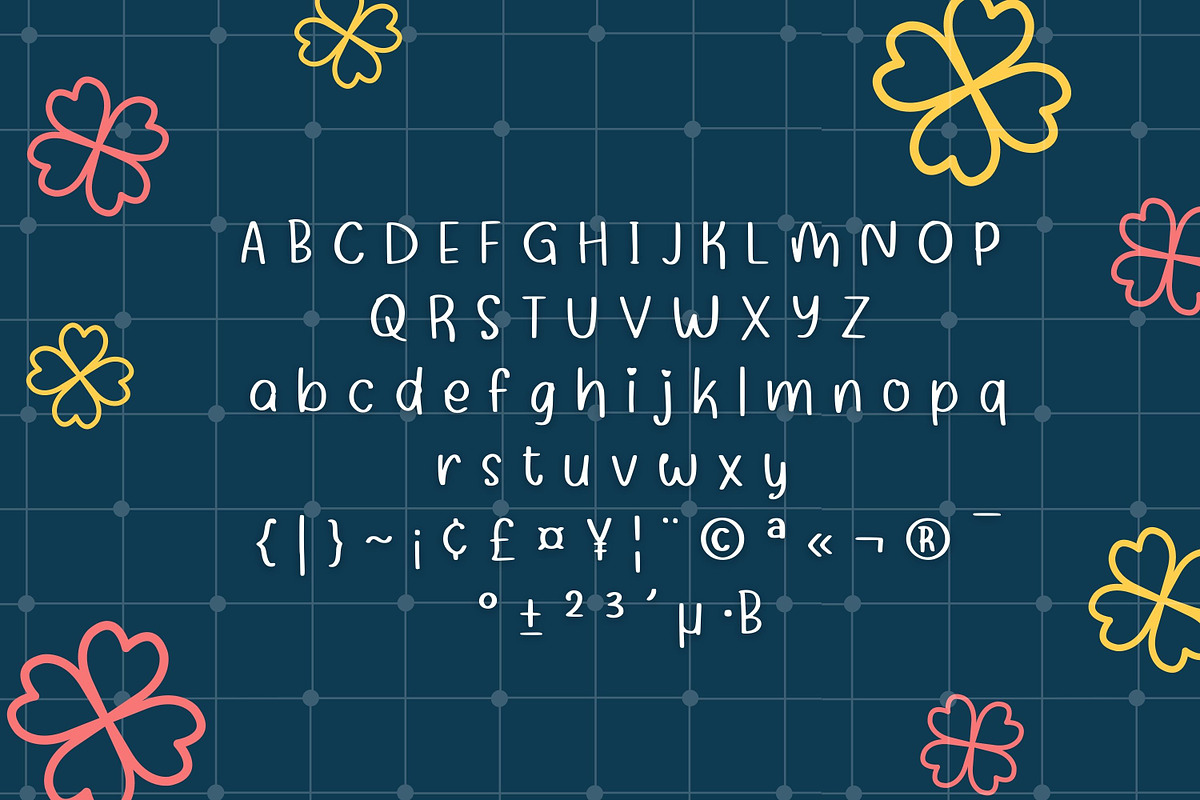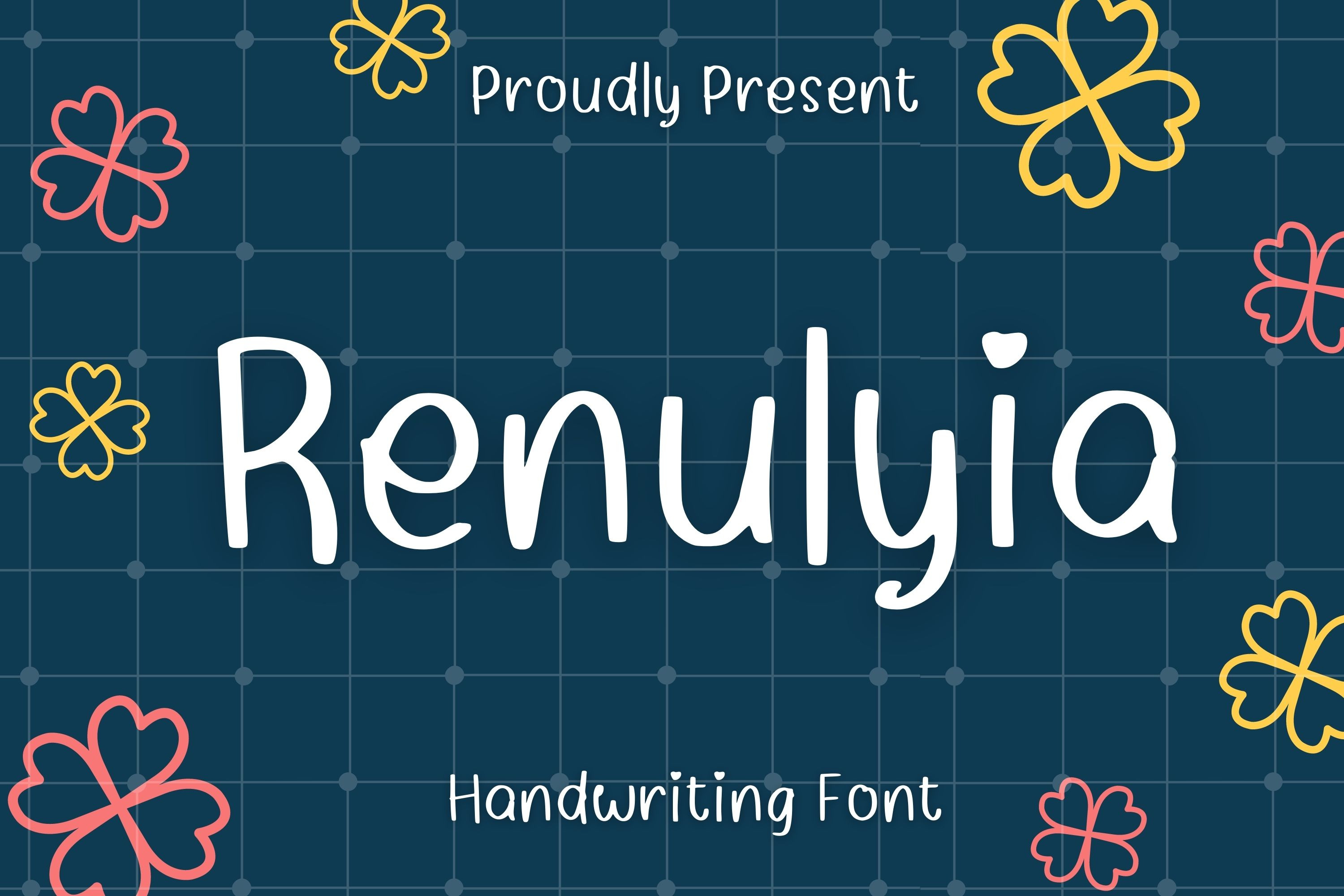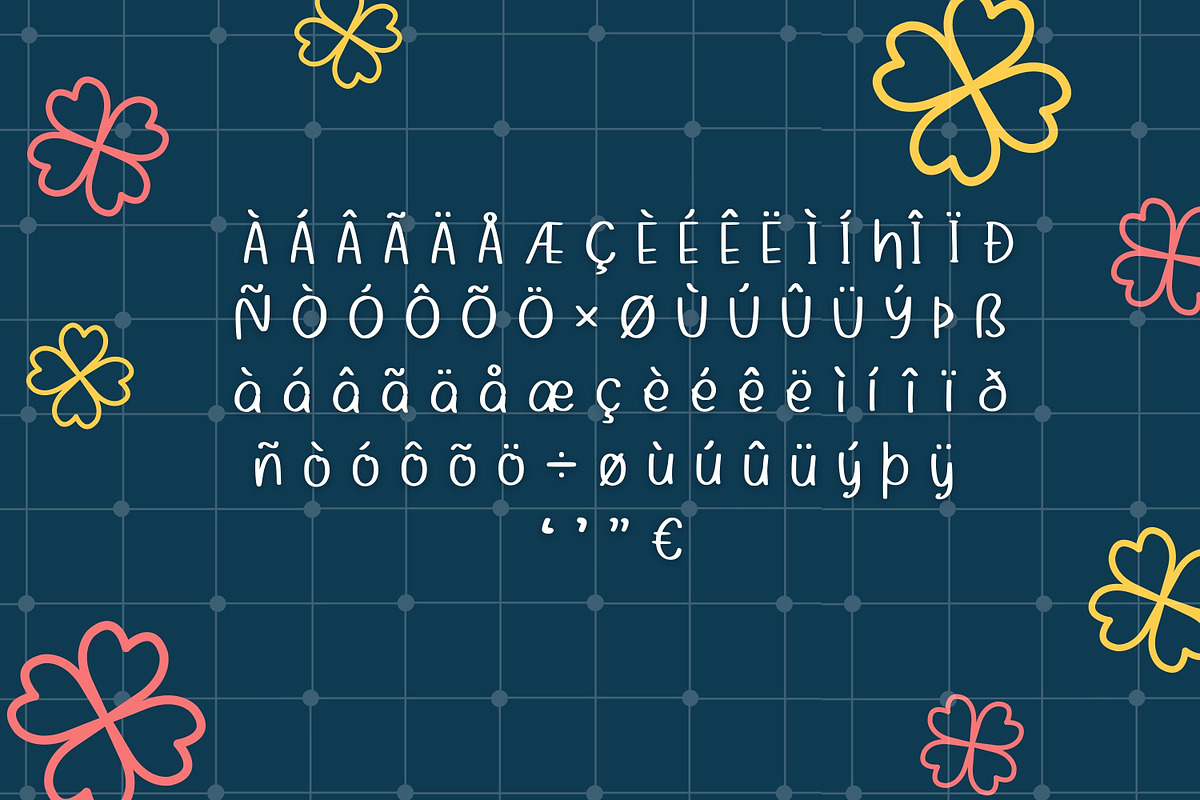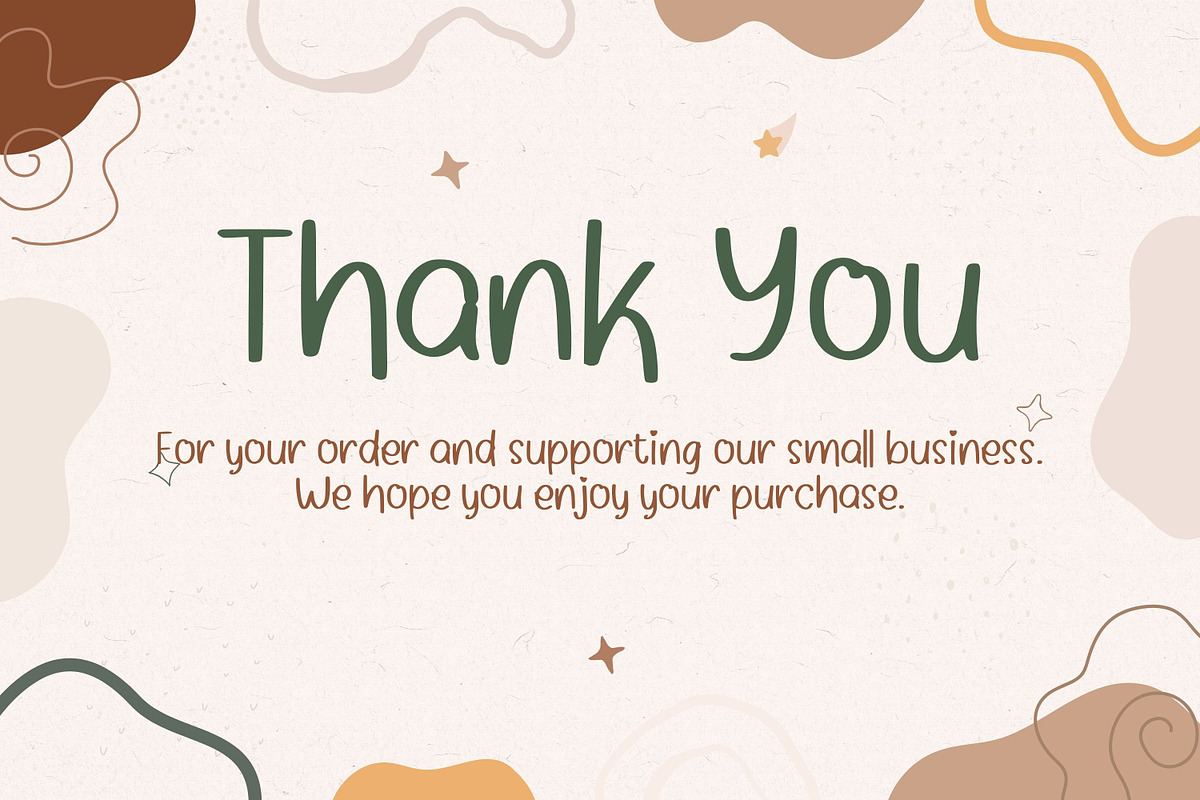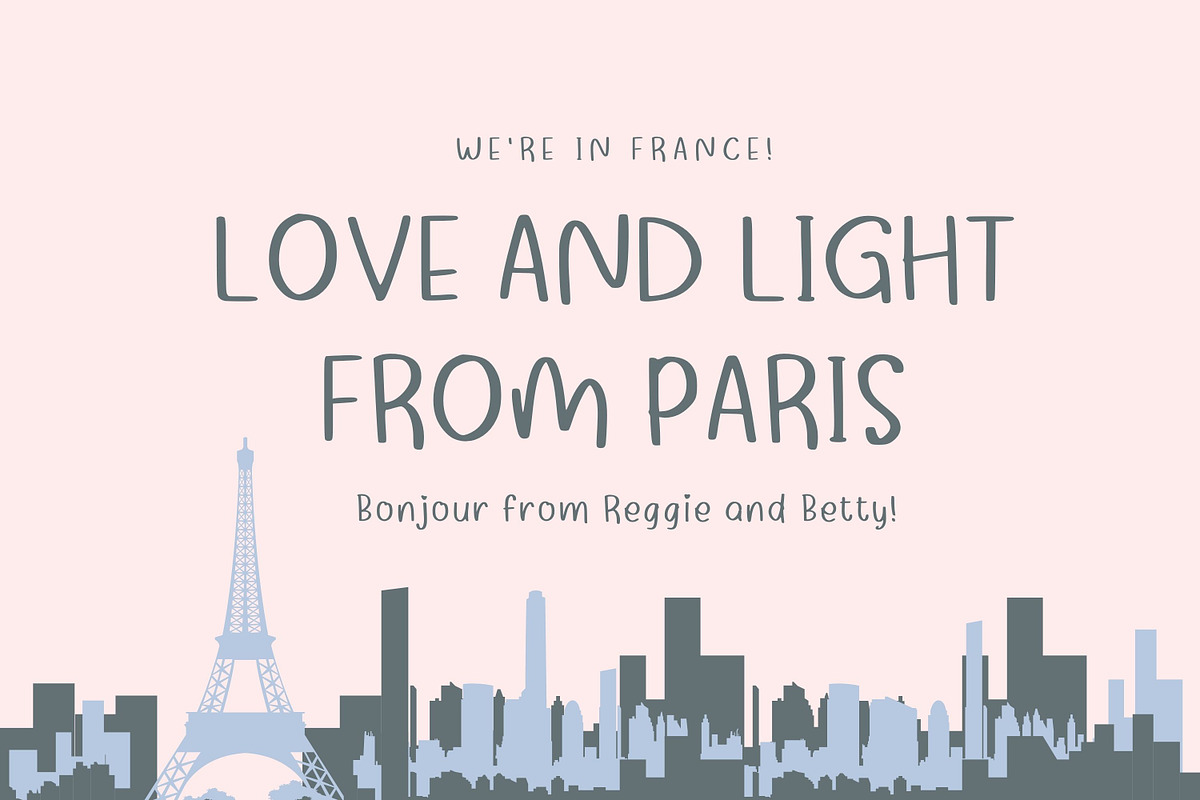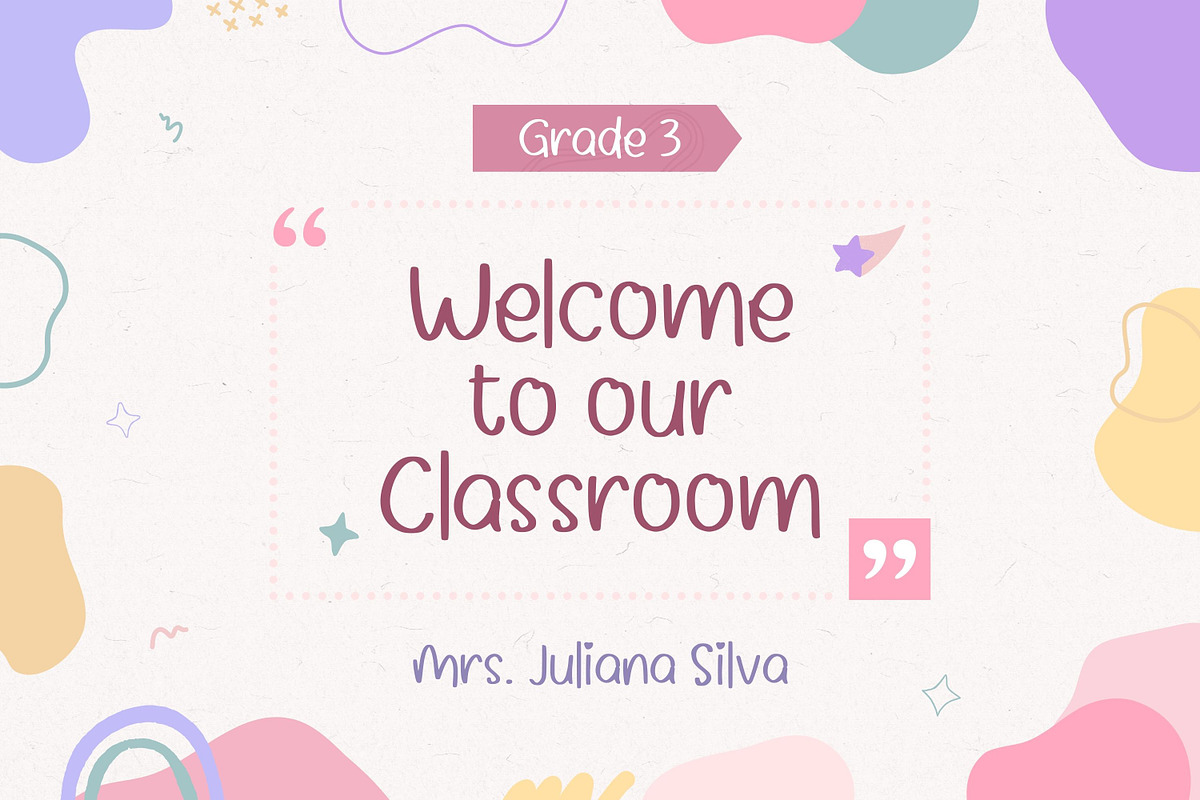
Renulyia Font
Renulyia is a cute and simple lettered handwritten font that can be used for all chalkboard quotes or teaching material! Its authentic look will add a realistic feel to your designs.